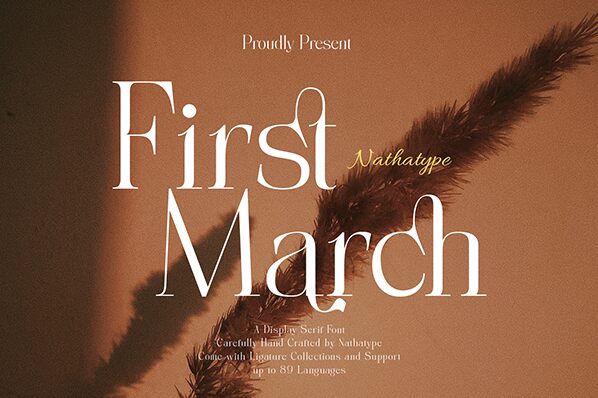
First March font is a sophisticated and elegant free serif font created by Nathatype. It’s a classic typeface inspired by traditional serif influences, yet it presents simple lines and minimal design elements that make the font resemble modern fonts. The letters are tall in their structure with larger top parts, and this unusual appearance creates unexpected angles and intersections. This is a perfect option for designers who need to complement their already-stunned audience with an even more memorable experience every time they read your written messages crafted using First March.
Versatility is offered as the beautiful font can present its soft clear appearance on logos, branding projects, book covers or article headlines being just as effective when used for side text content such as posters details or magazine body text. Social media presence can be re-shaped too by updating posts styles and visuals on platforms such as Instagram, Facebook, Twitter etc.